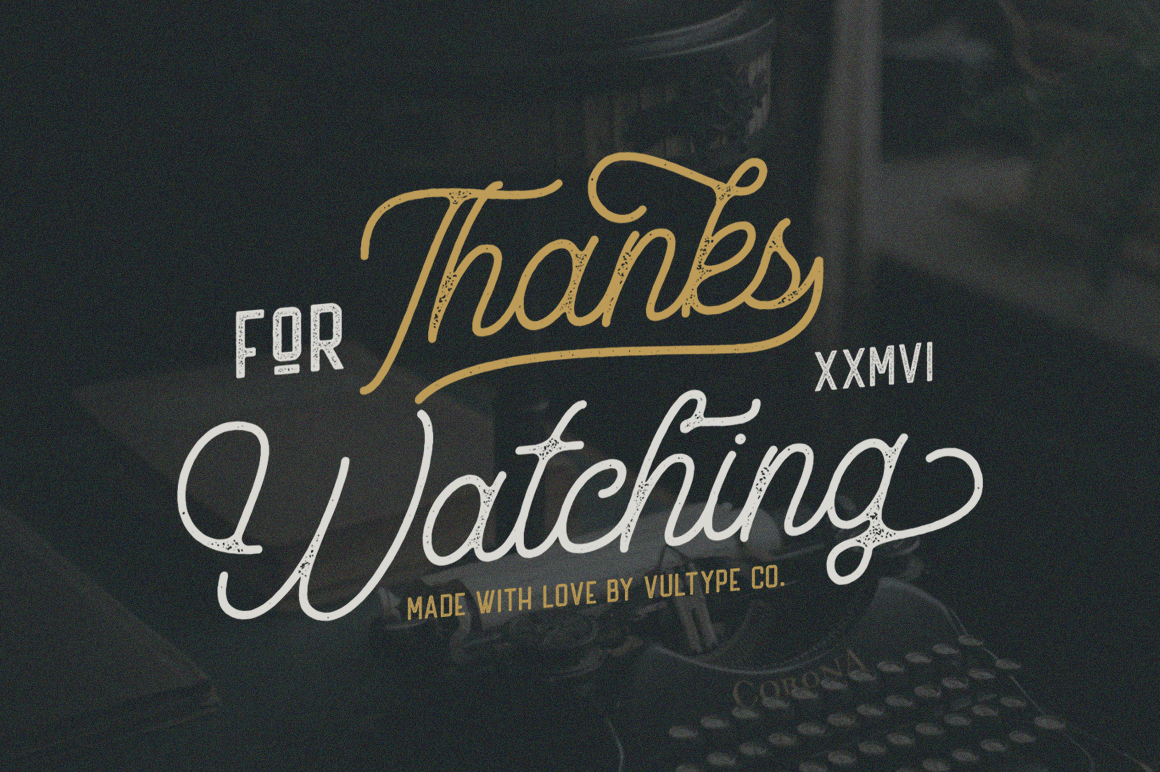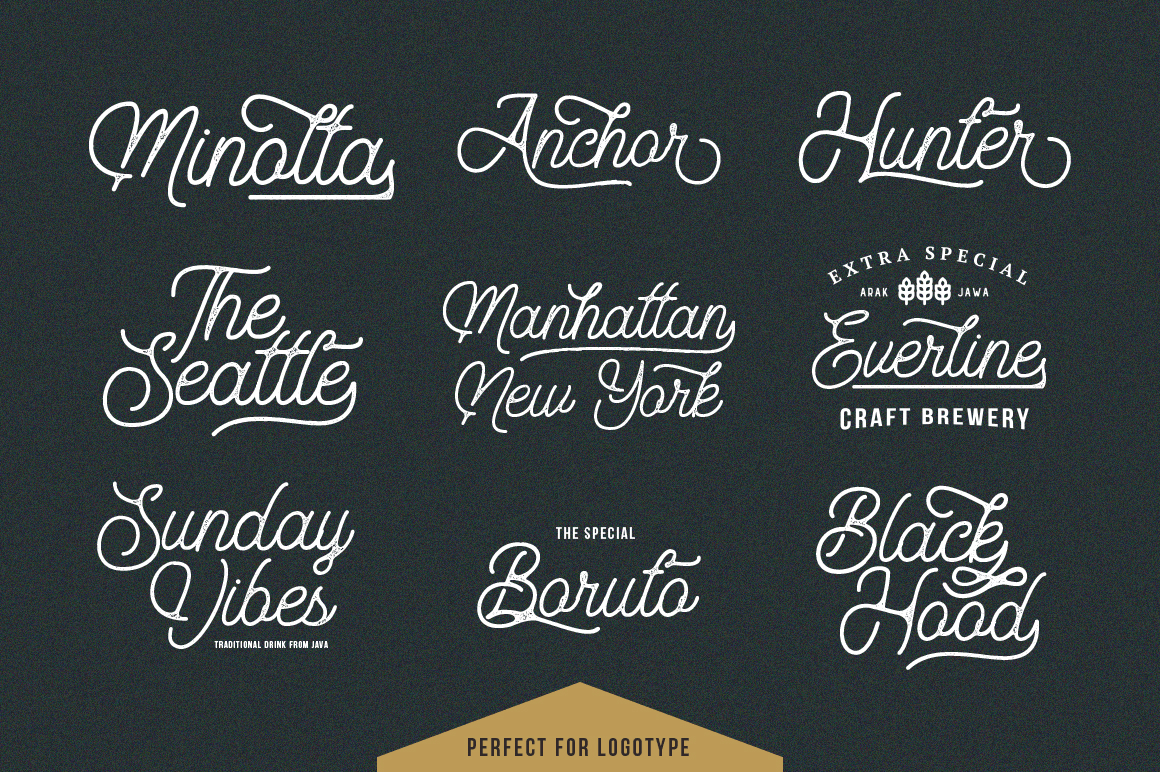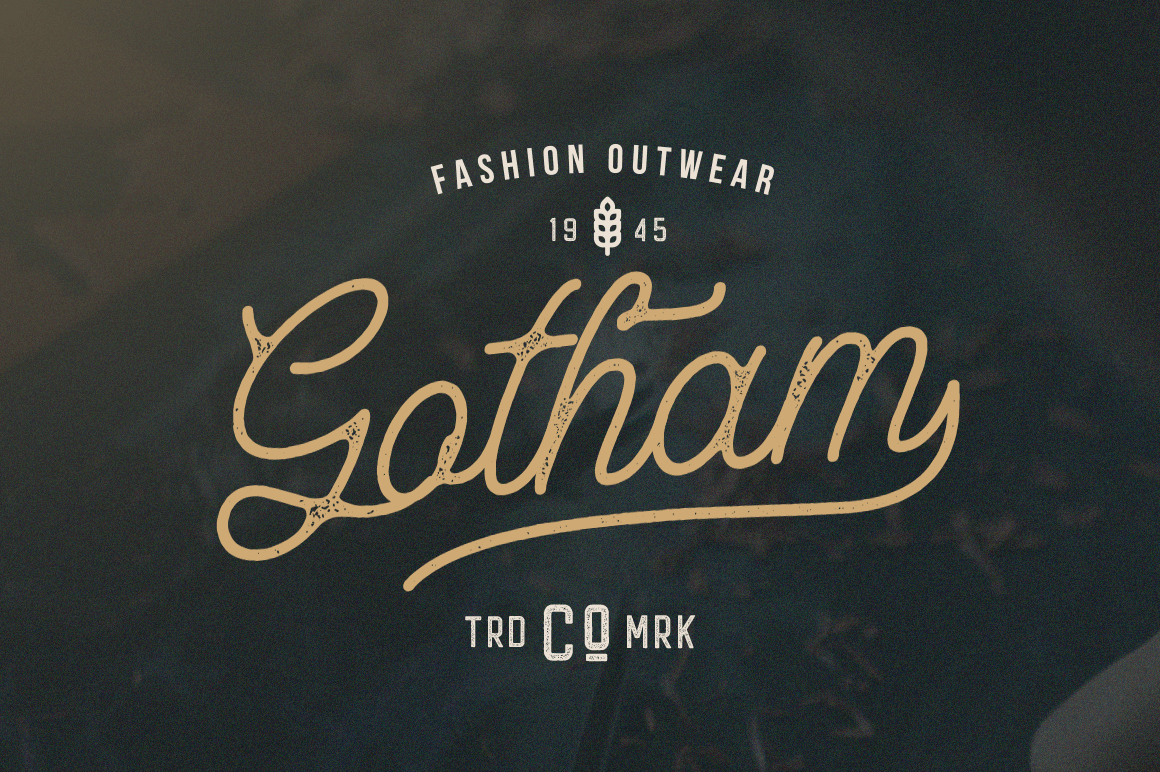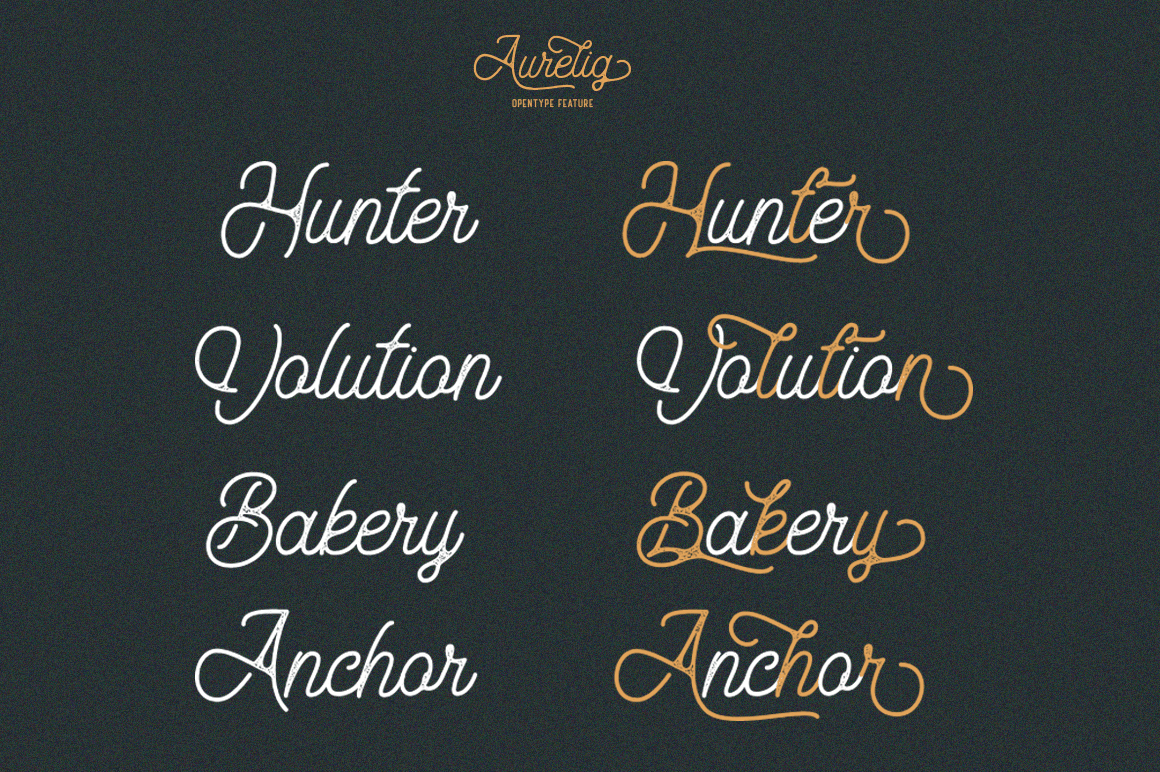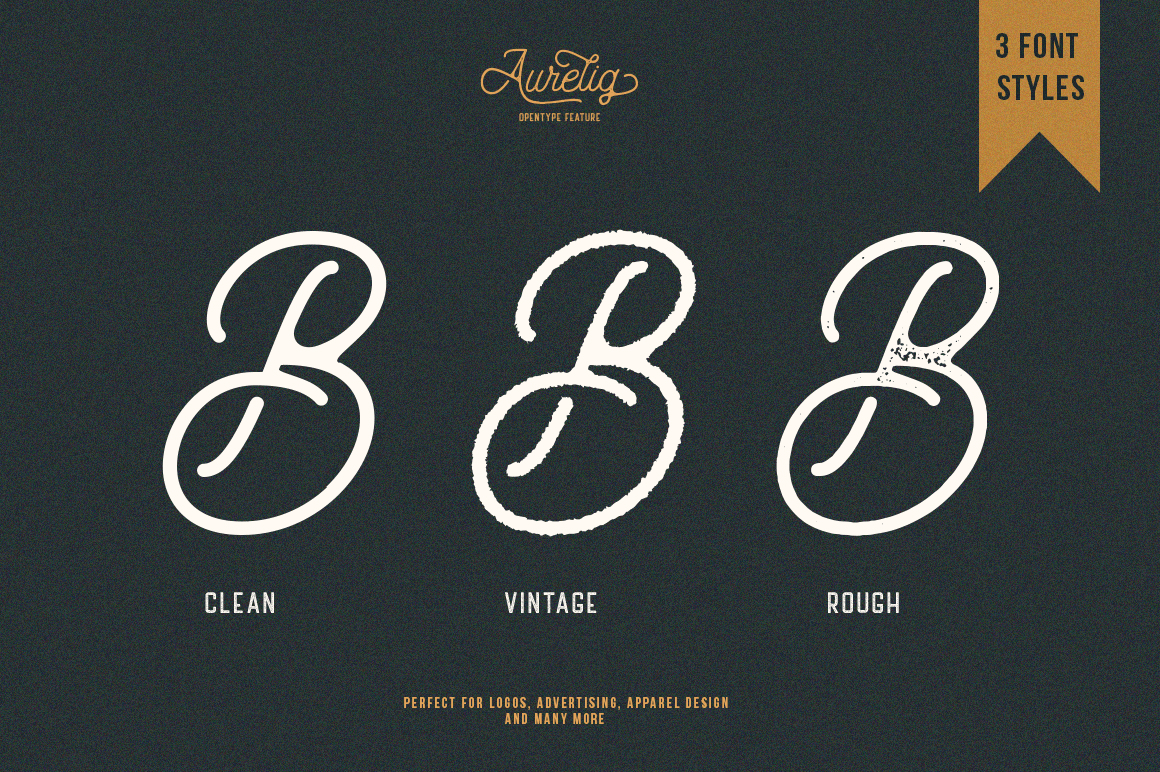
About Aurelig
Aurelig Vintage Script with monoline style was very inspired from modern vintage and retro style This vintage font have clean, vintage and rough version, special features such as stylistic alternates, ligatures and swashes. Also, Americus includes western…